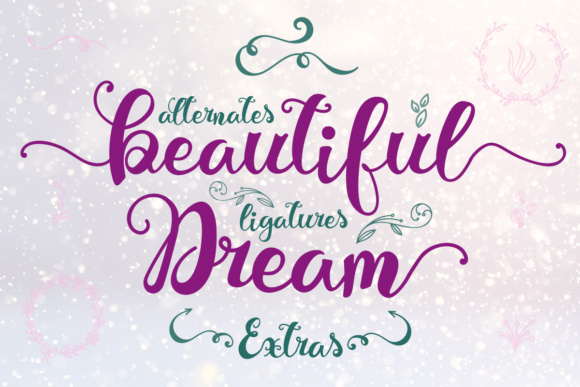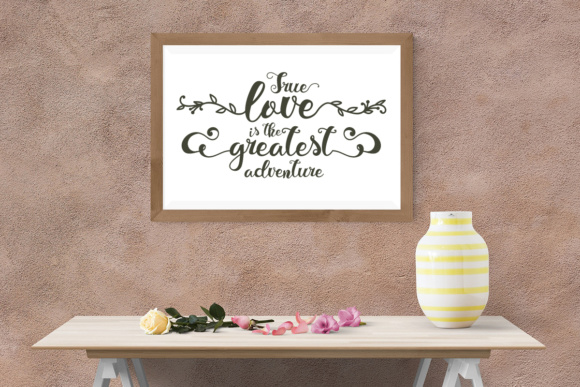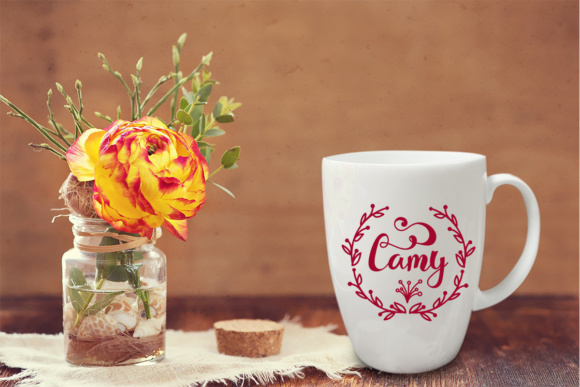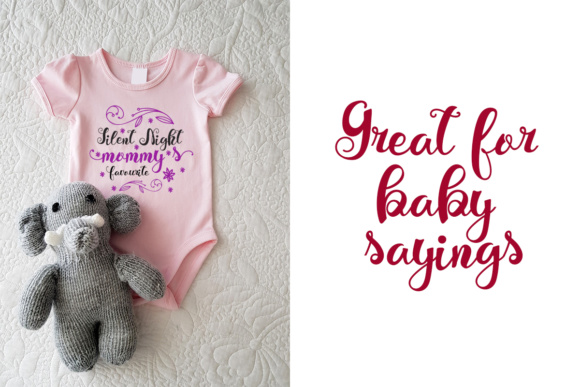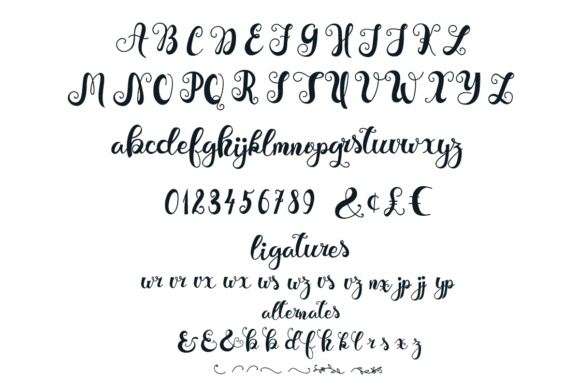
About Beautiful Dream Font
The Beautiful Dream is an elegant font designed for the creative spirits out there!
It was inspired by the quotes for the Black Friday bundle. It’s delicately handlettered for a dreamy feel, and comes with a couple of alternates that are handy for stylish projects.
Just perfect for those who love to create quotes for social media, print and craft, whimsical collages, e-newsletters, web banners to skyrocket on social media!
You’ll have all the great pieces you need to create something wonderful by just adding some swirls, banners, monograms, floral elements by using the extras!